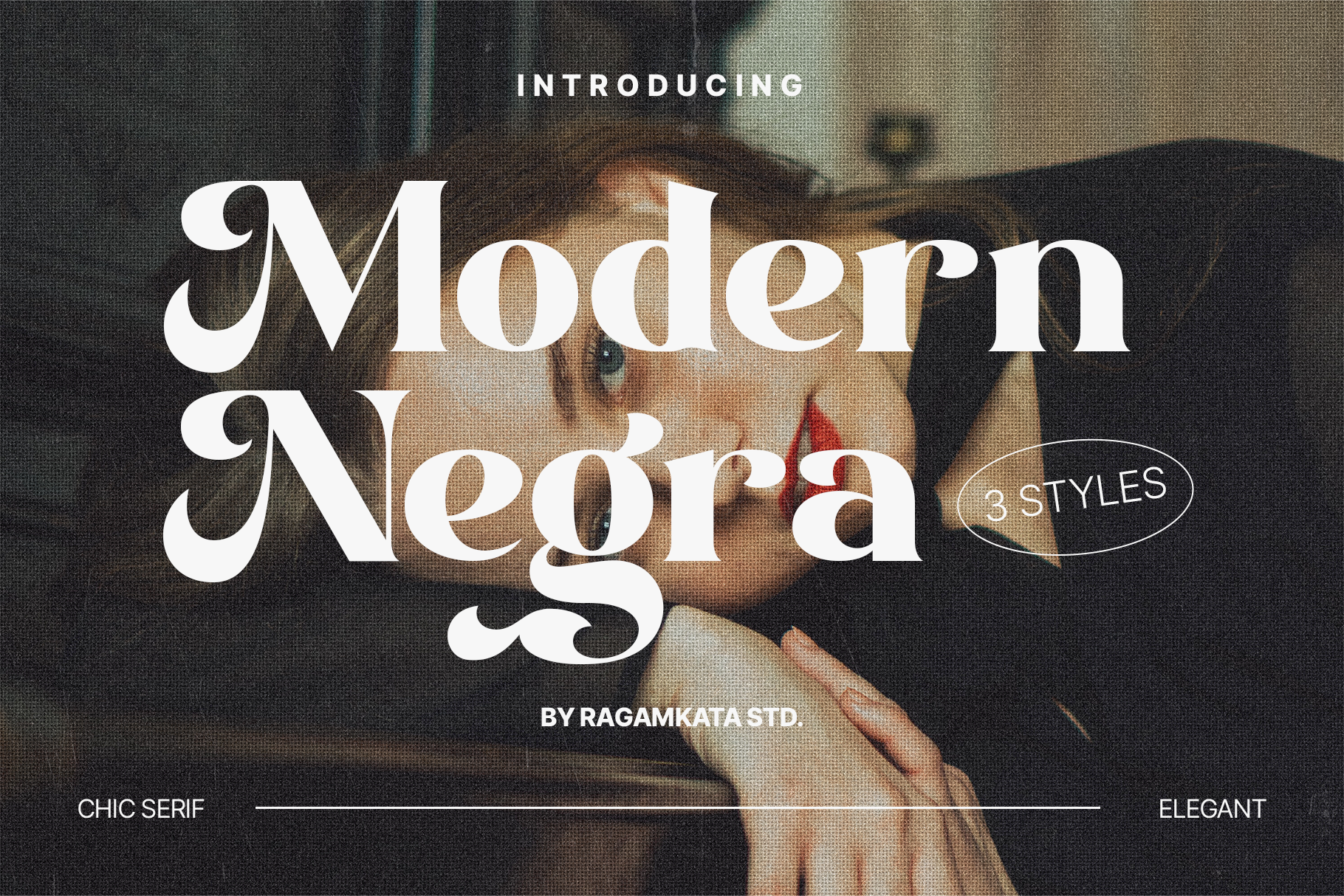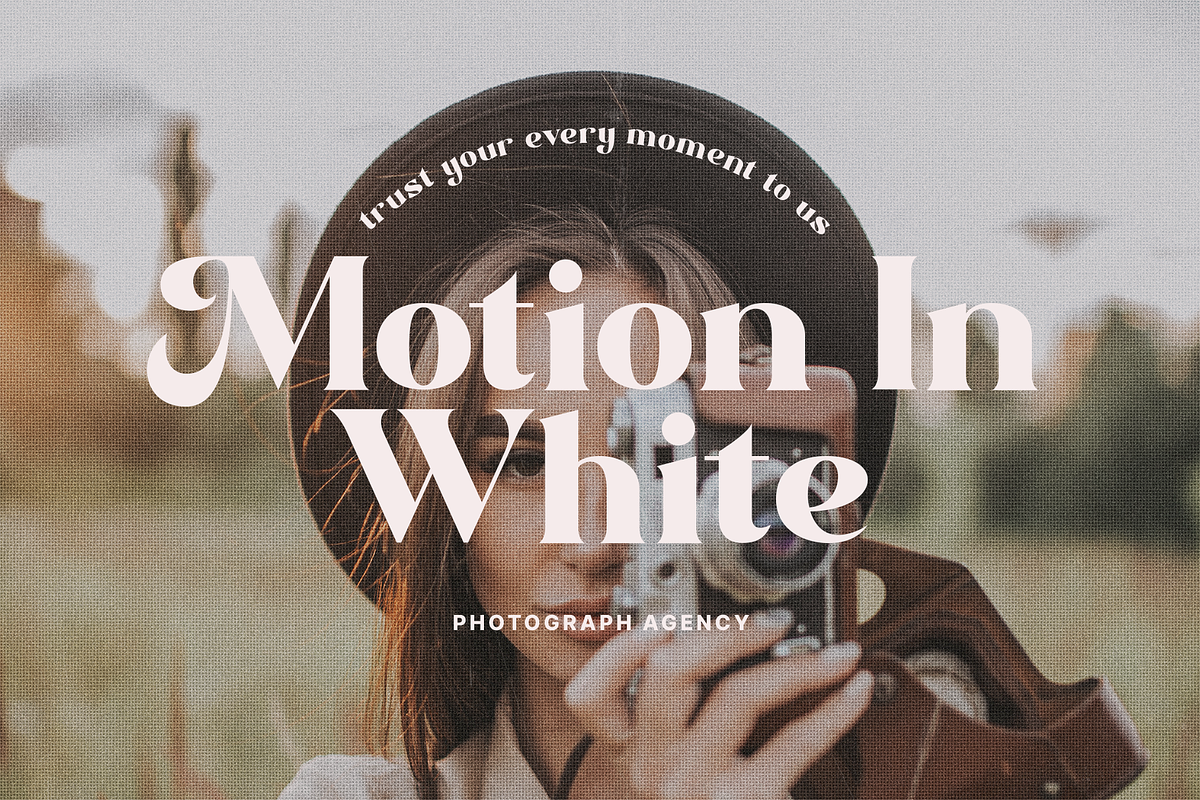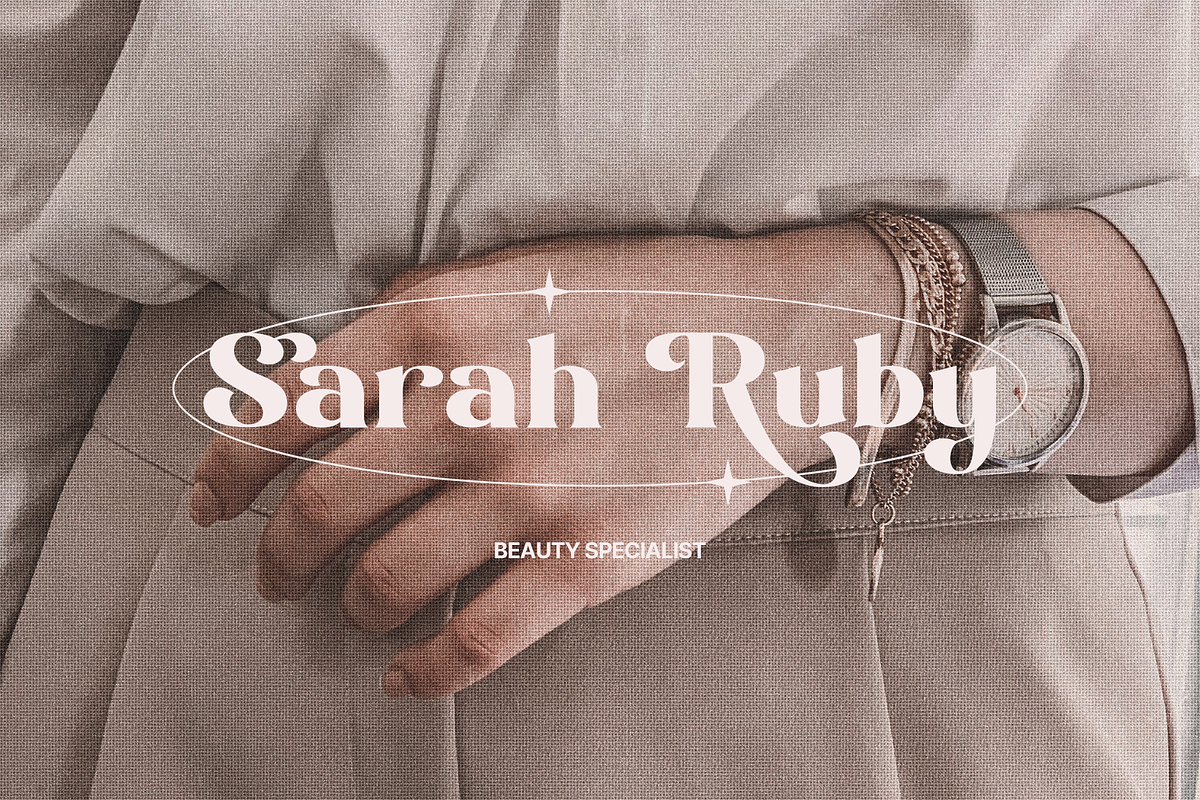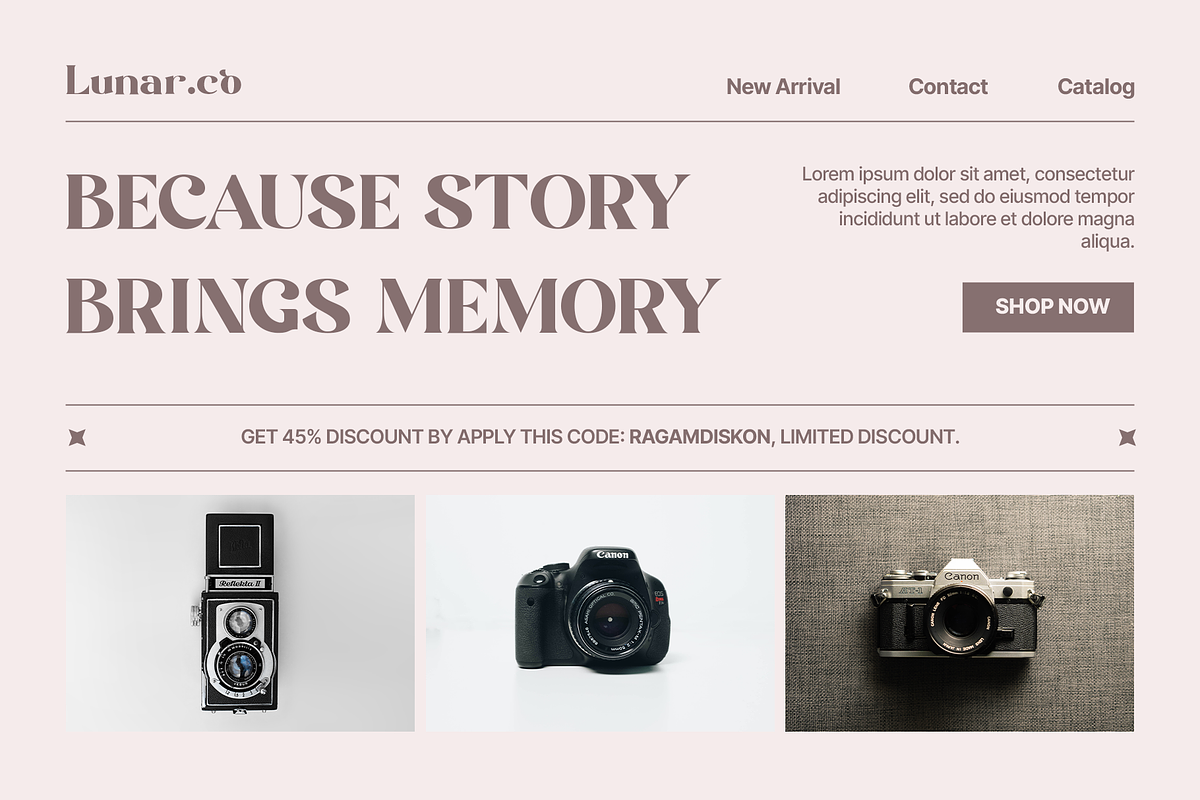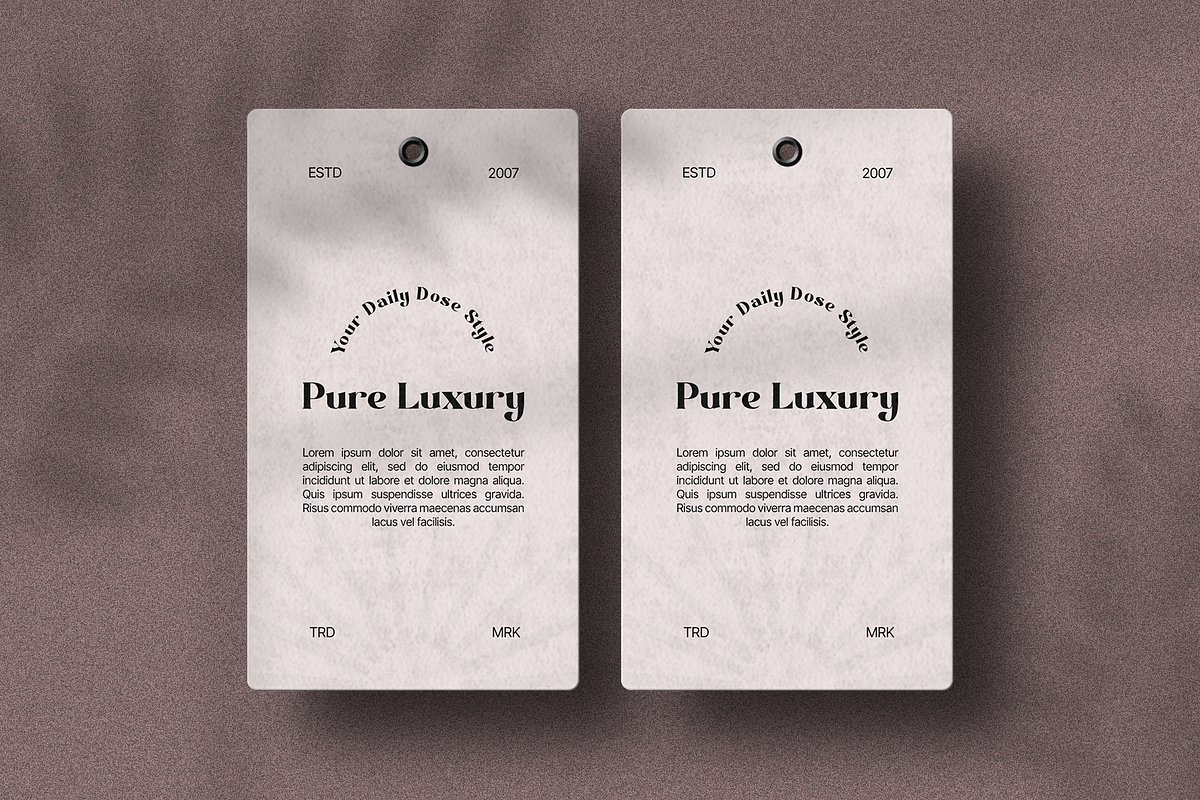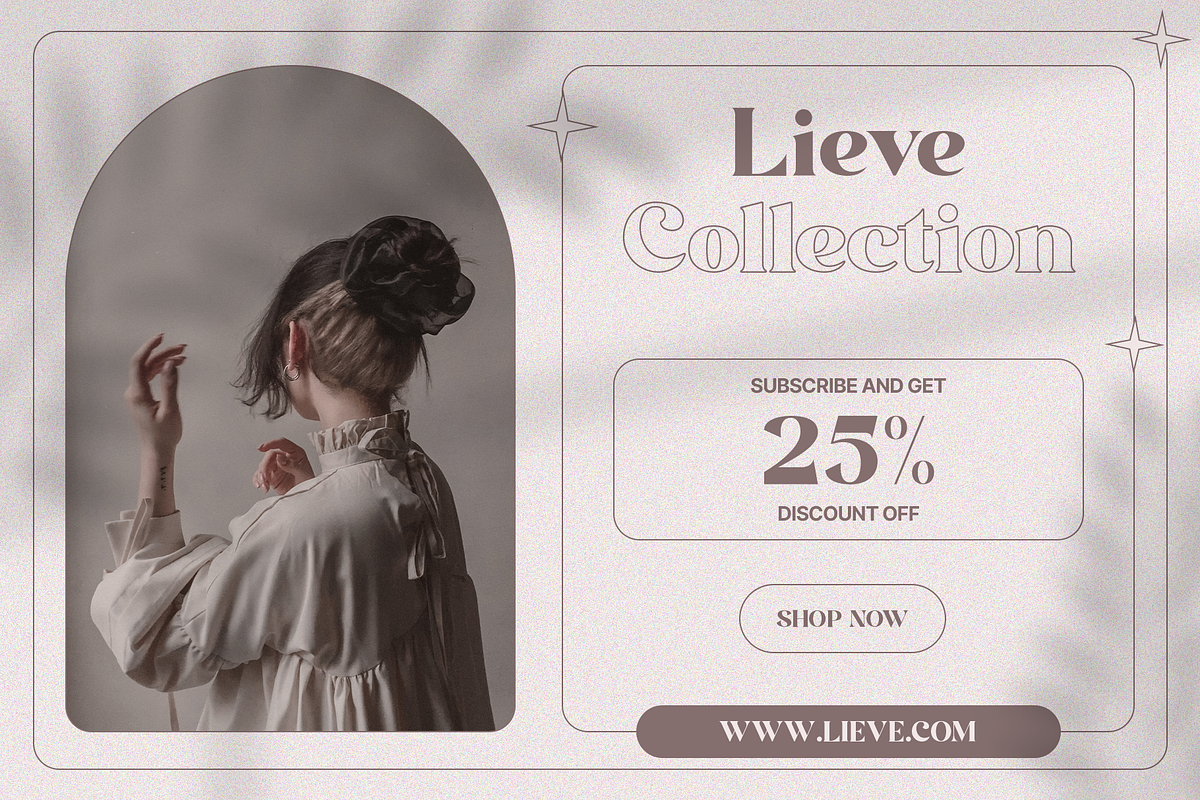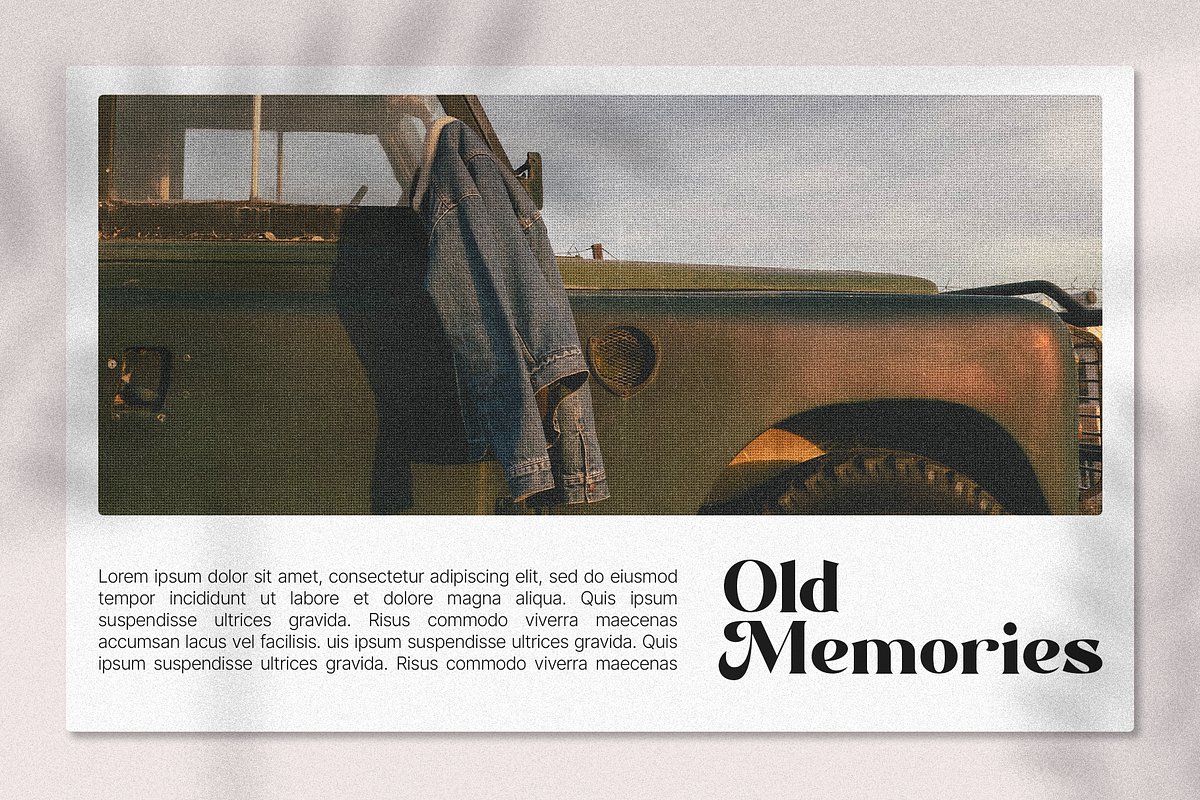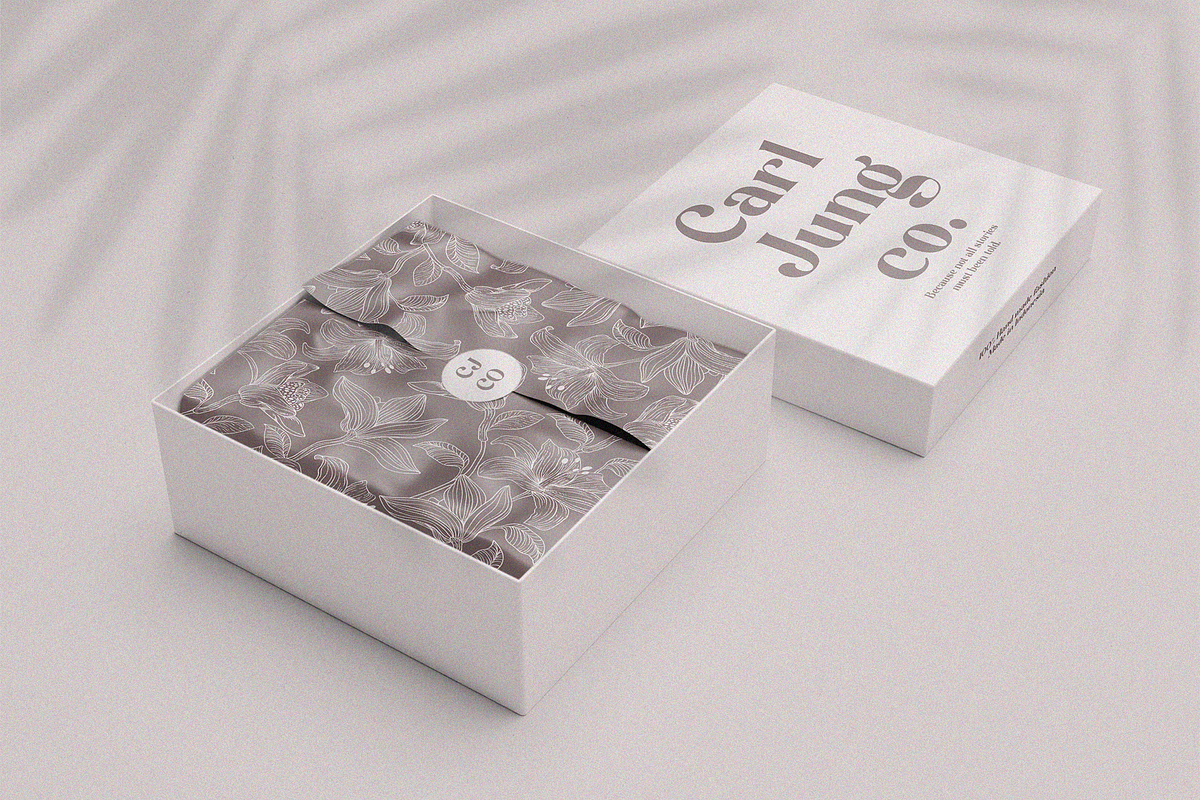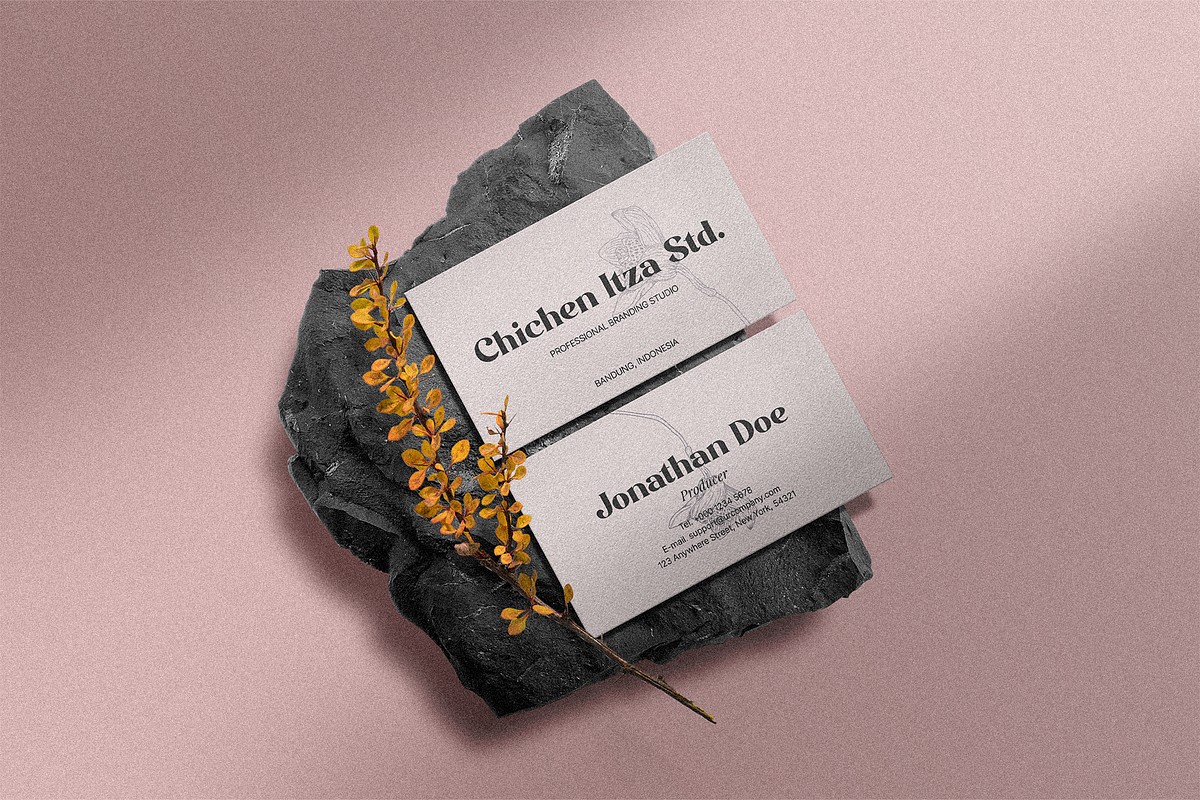
Modern Negra - Social Media Typeface
Modern Negra is a Modern elegant serif typeface with Unique alternative , multilingual support with perfect kerning. This typeface is perfect for an elegant & luxury logo , classy editorial design, women's magazine, fashion brand , cosmetic brand, fashion promotion , modern advertising design, invitation card, art quote, home decoration , book/cover titles, special events, Tote bag, T-shirt, Advertising and much more.
Modern Negra Features:
- Uppercase And Lowercase
- Alternates And Ligatures